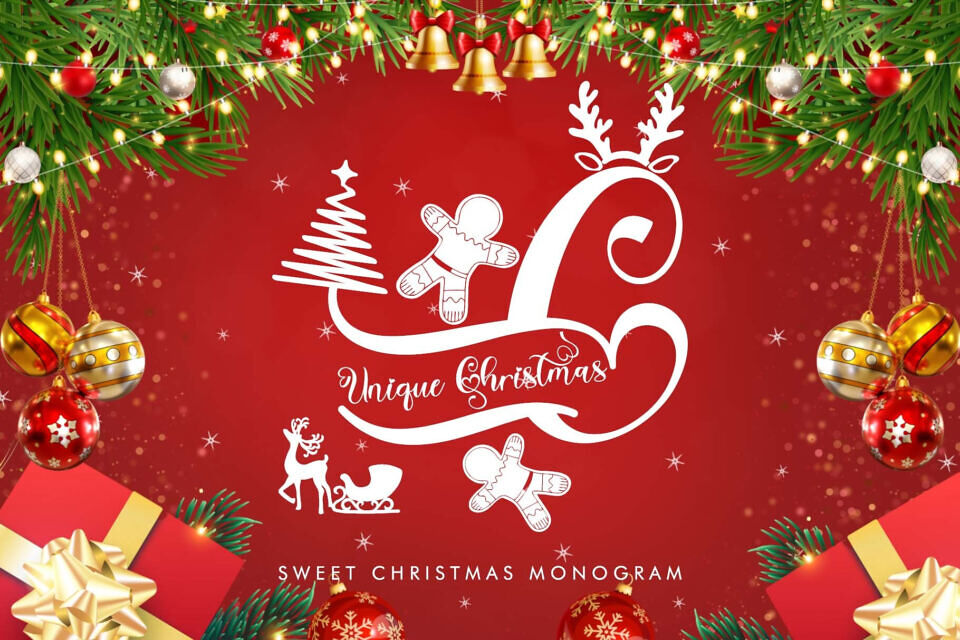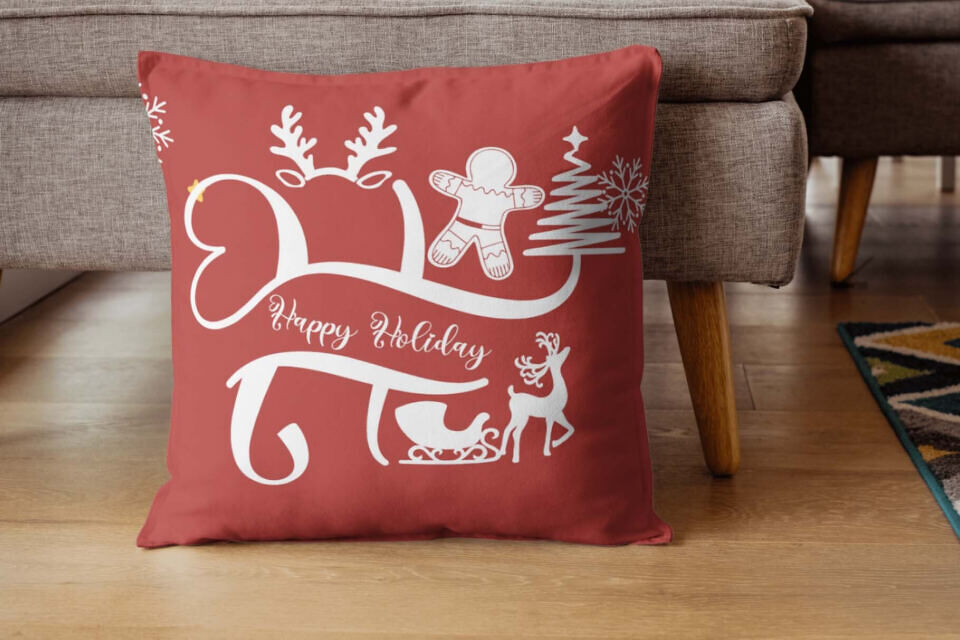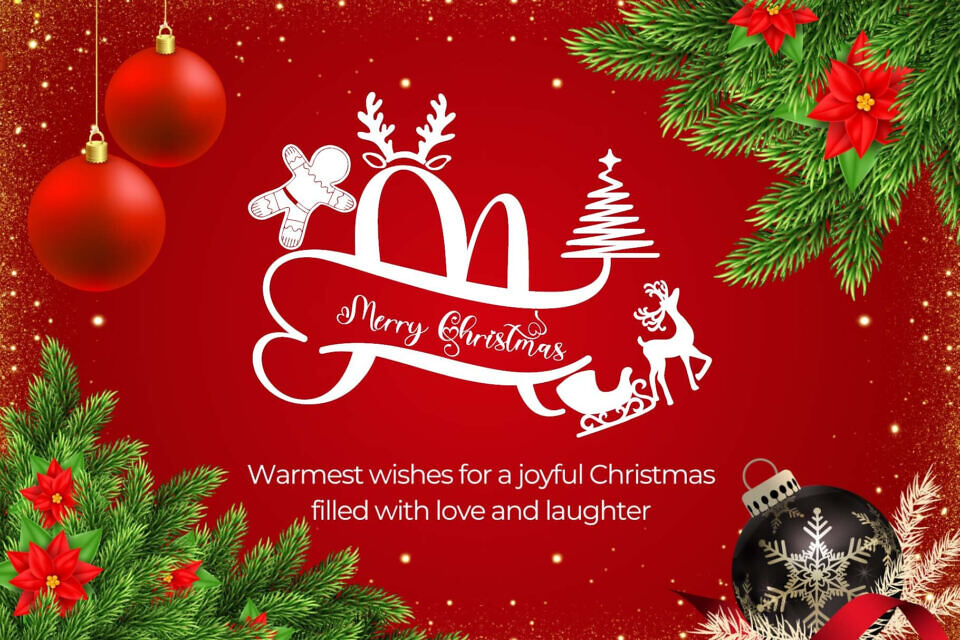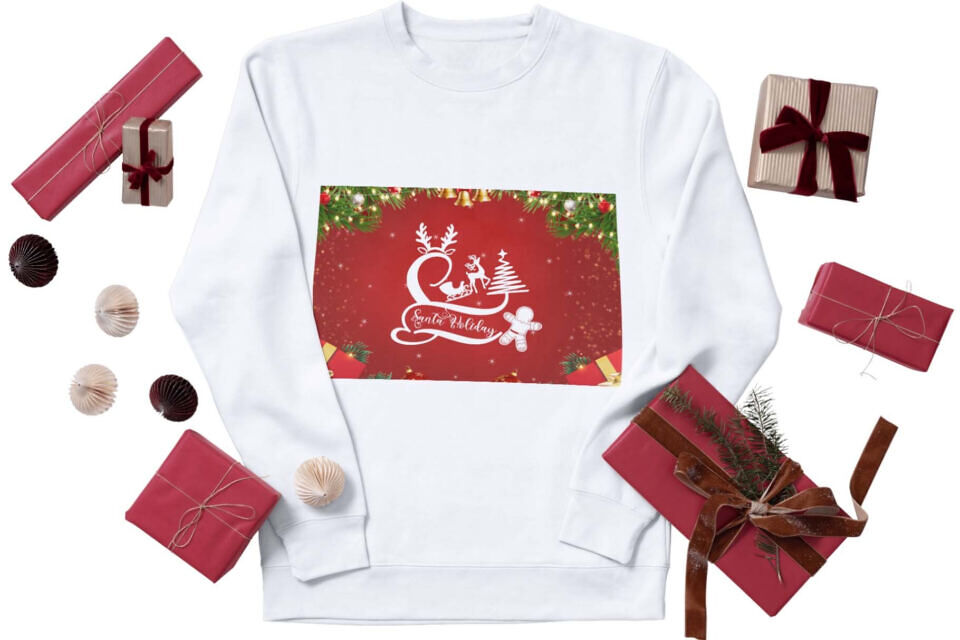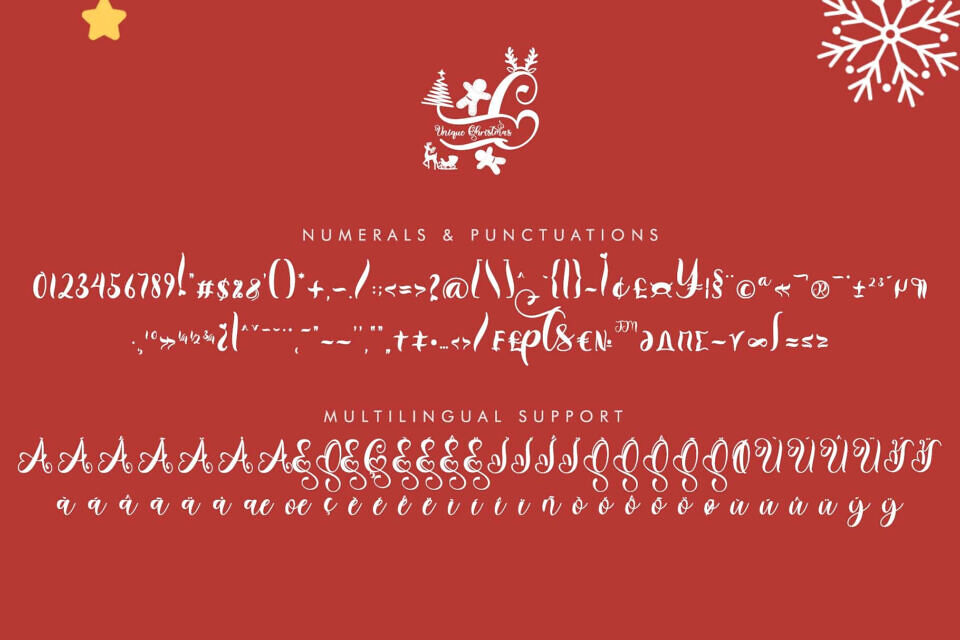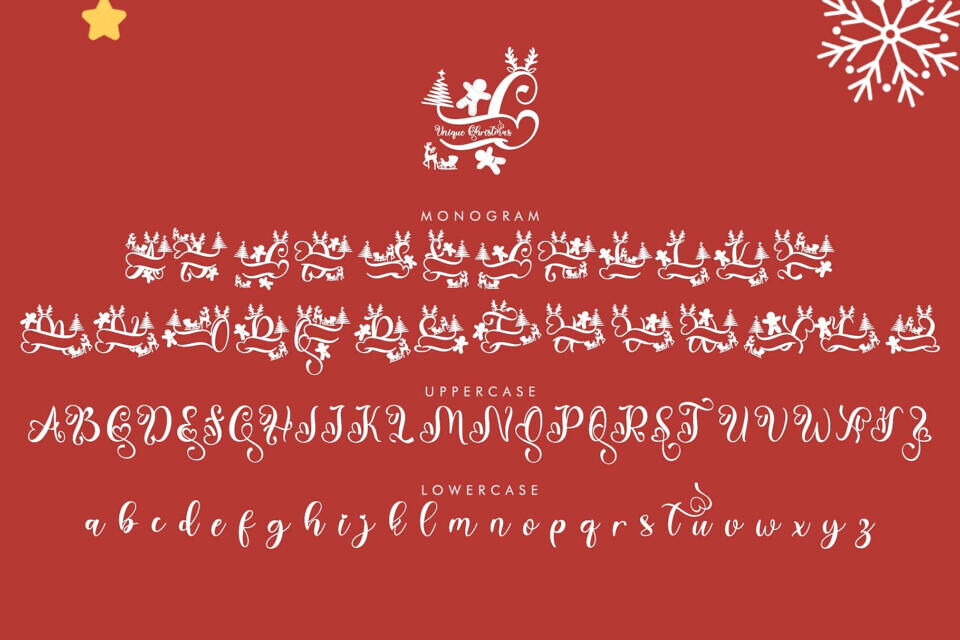
Unique Christmas Font
Unique Christmas Monogram is a beautiful and gorgeous Christmas monogram font. It features monograms, uppercase and lowercase letters, numerals, punctuation, and multilingual support. It’s perfect for banners, Christmas invitations, Halloween, weddings, holidays, fall, autumn, photography, winter, printing, branding, stickers, sublimation, and more.